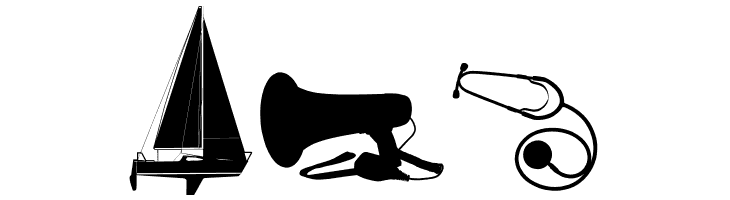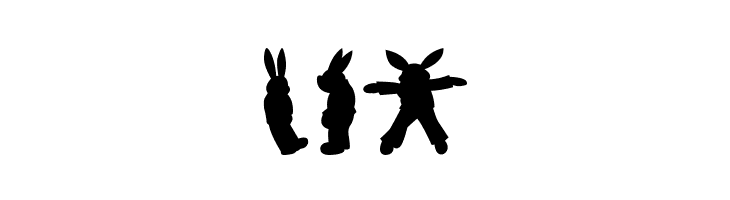
A pictogram dingbat font featuring diverse object silhouettes.
A modern dot matrix font with evenly spaced dots forming each character.
A decorative font using rabbit silhouettes for each character.
A playful, dot-based font with a whimsical and textured appearance.
A decorative symbol font featuring diverse arrow icons.
A bold, diamond-dotted font with a pixelated, geometric style.
A light, dotted font with characters formed by diamond-shaped dots, offering a modern and decorative style.